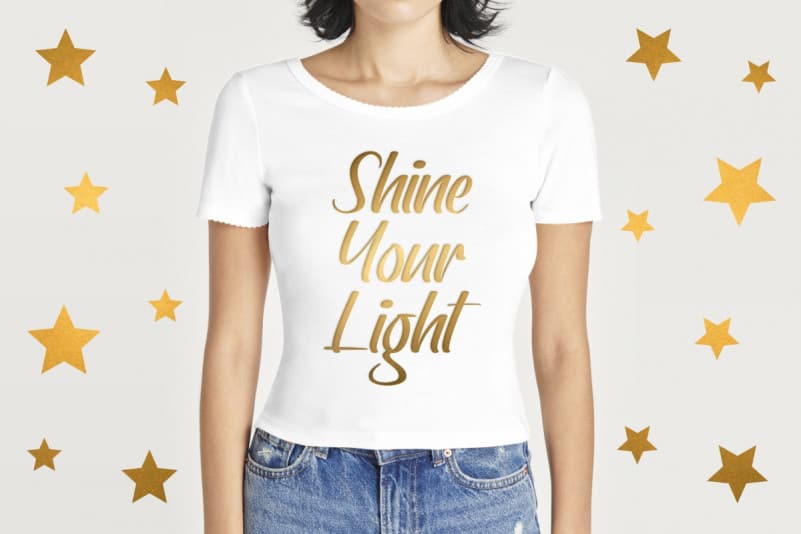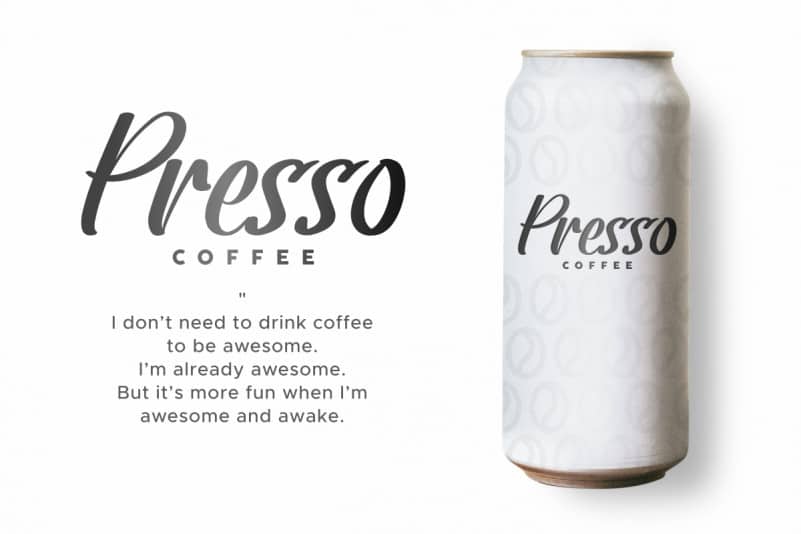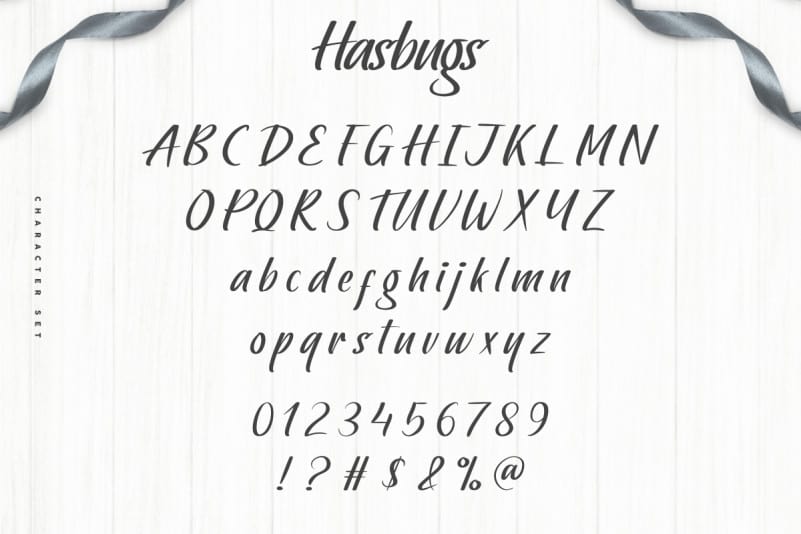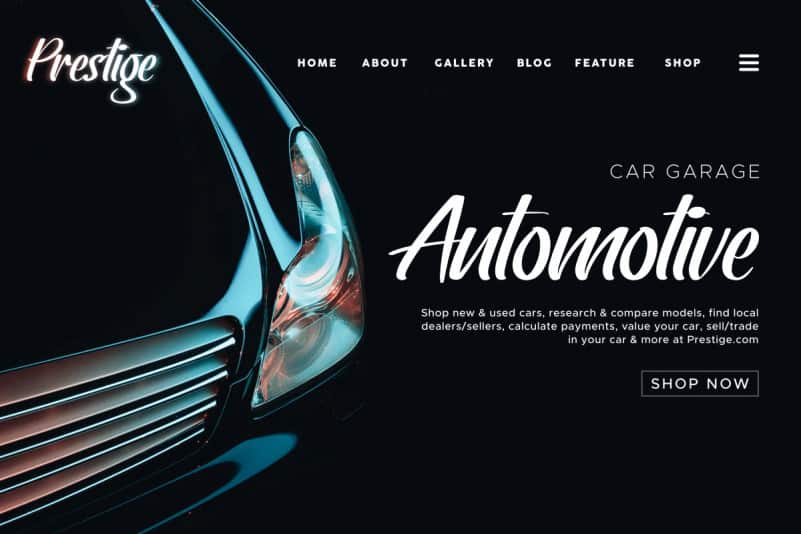
Hasbugs Brush Font
Hasbugs Brush Font is remotely made in Bandung and Garut, Indonesia. The font was handcrafted for any your special projects including : headline, promotion, events, branding, advertising, magazine, signage, invitation, stationery, social media posts, label, or and any projects that need unique strong style. The theme/industries of this font is Movie, Game, Magazine, Music, Video, Sports, Racing etc
Hasbugs Brush Font includes full set of AWESOME uppercase, lowercase letters, numerals, a range of punctuation and ligatures with a unique brush type.